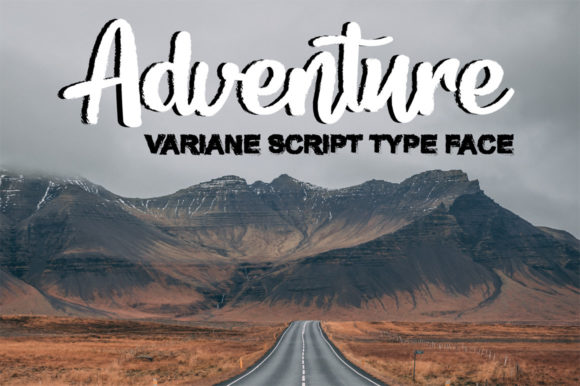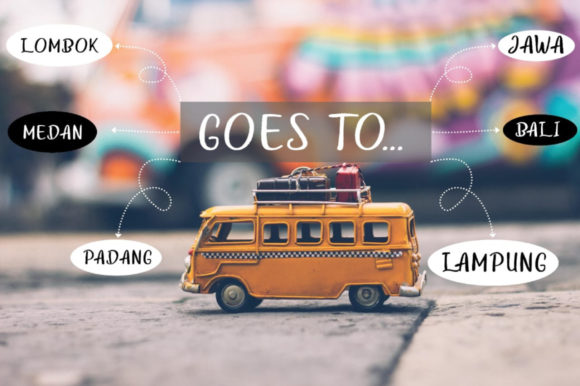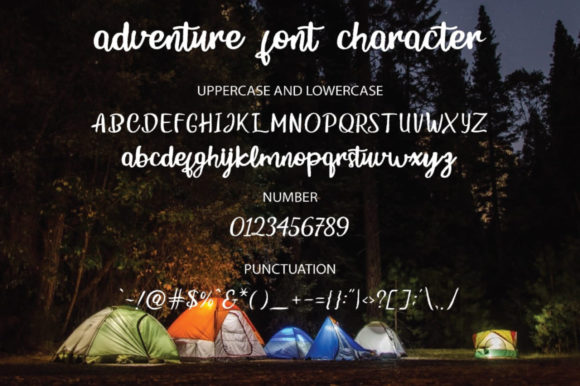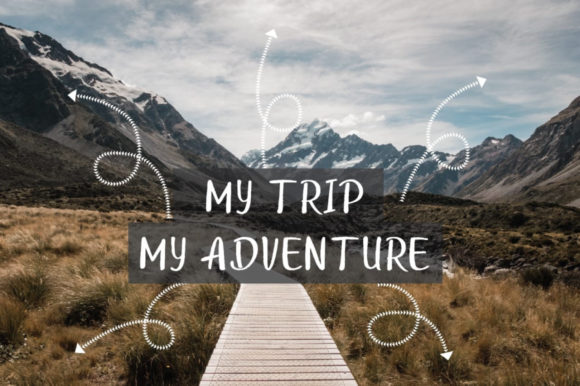
Adventure Font
Adventure is a delicate and elegant handwritten font. Its distinct and well balanced letters make this font a masterpiece. Fall in love with its incredibly versatile style and use it to create spectacular designs!